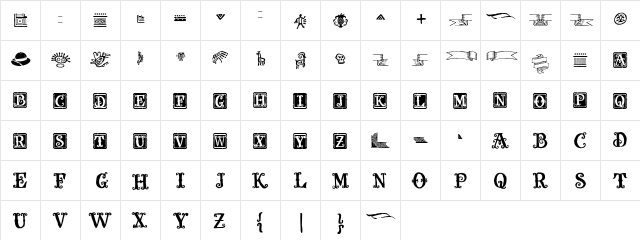
Olduvai Ornaments Regular
| Foundry | Aquatoad Design |
| Designer | Randy Jones |
Design Context for Olduvai Ornaments Typeface
Olduvai Ornaments brings ornamental detail and strong personality to headlines and identities, where visual impact matters more than quiet functionality.
Font Pairing: Pair with a clean neutral sans-serif for body copy to let Olduvai Ornaments's character lead without overwhelming the composition.
Pro Tip: Use Olduvai Ornaments exclusively at display sizes — it was designed to be seen, not read at length. Let a neutral companion handle body copy.